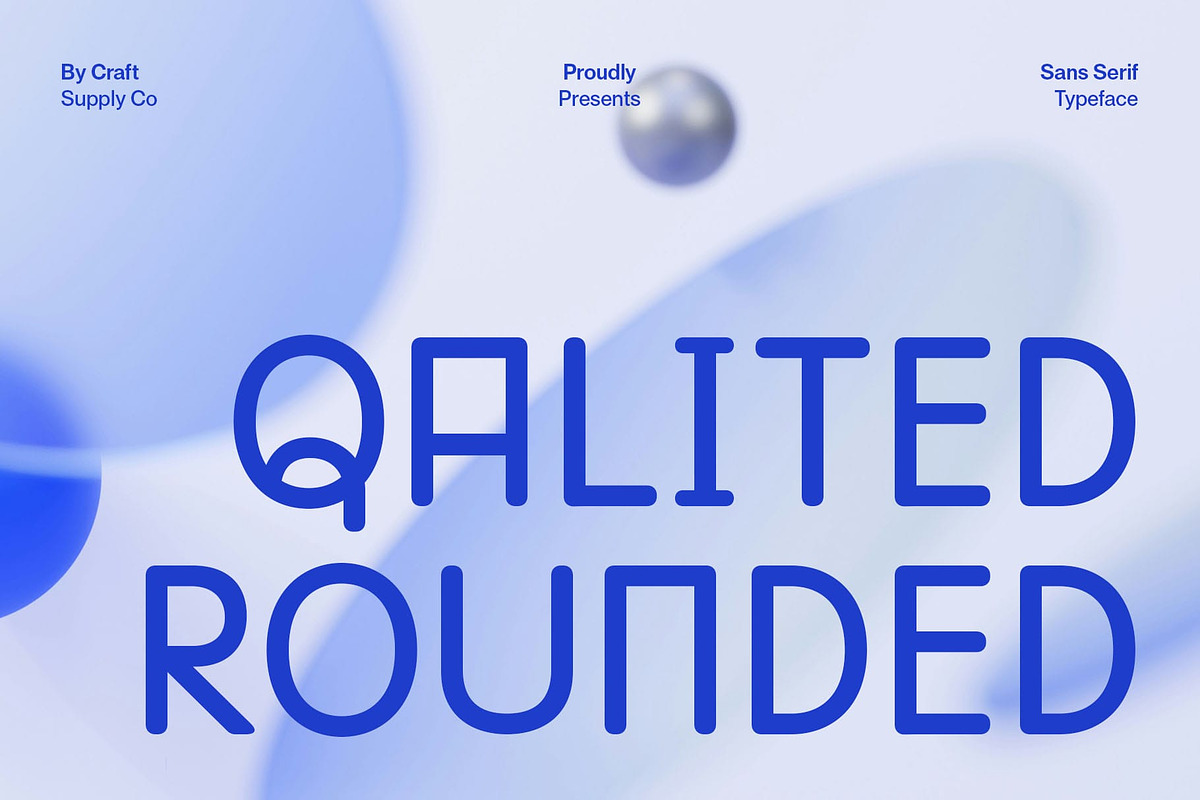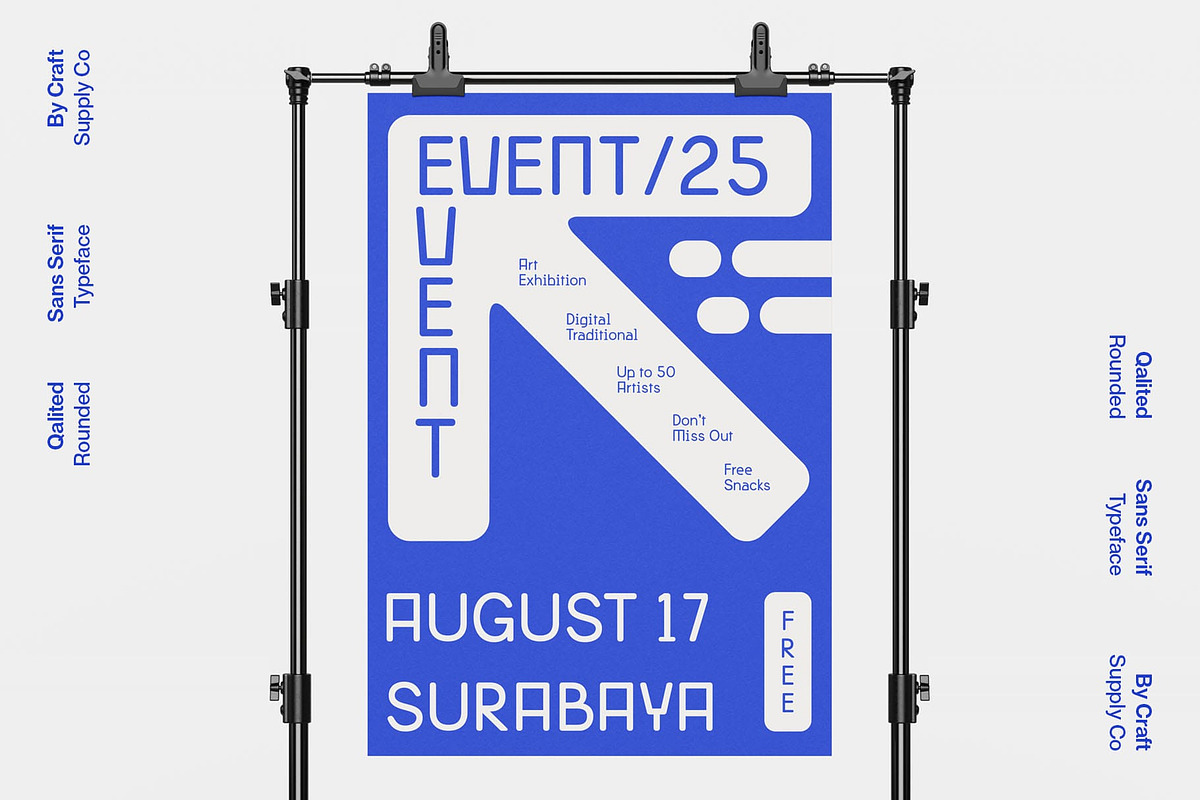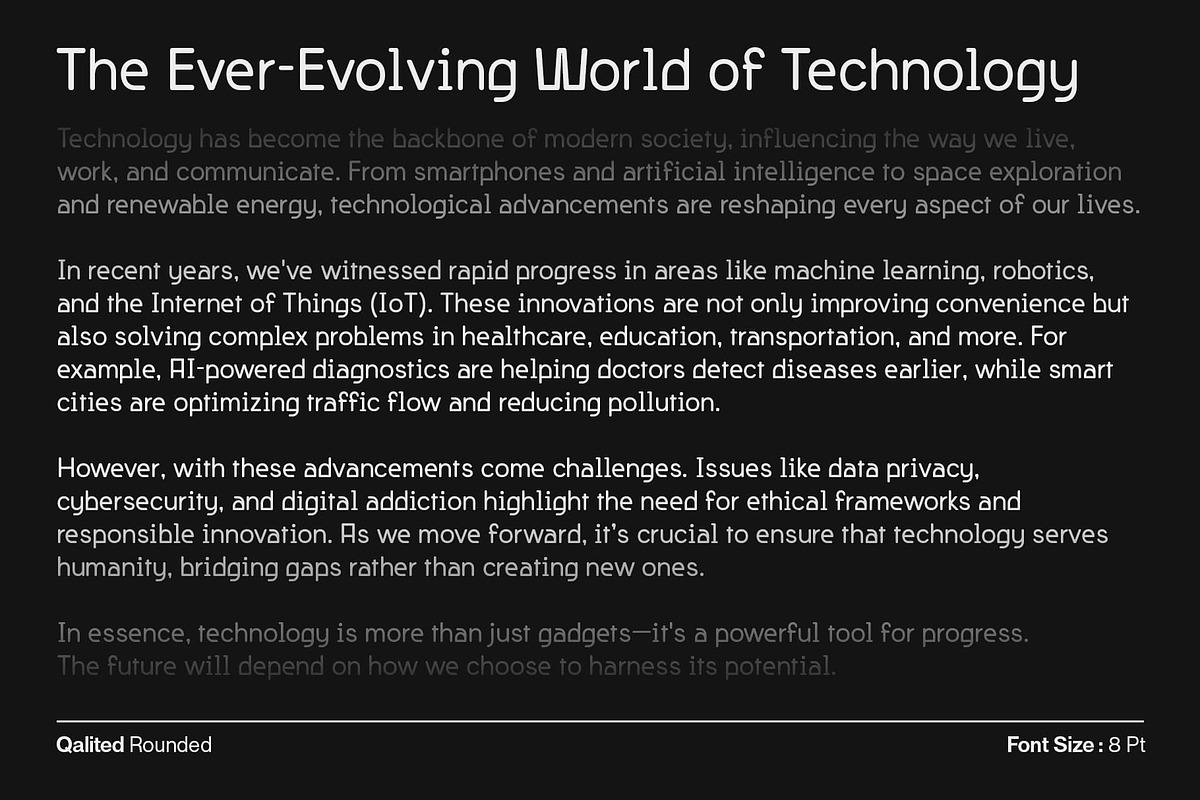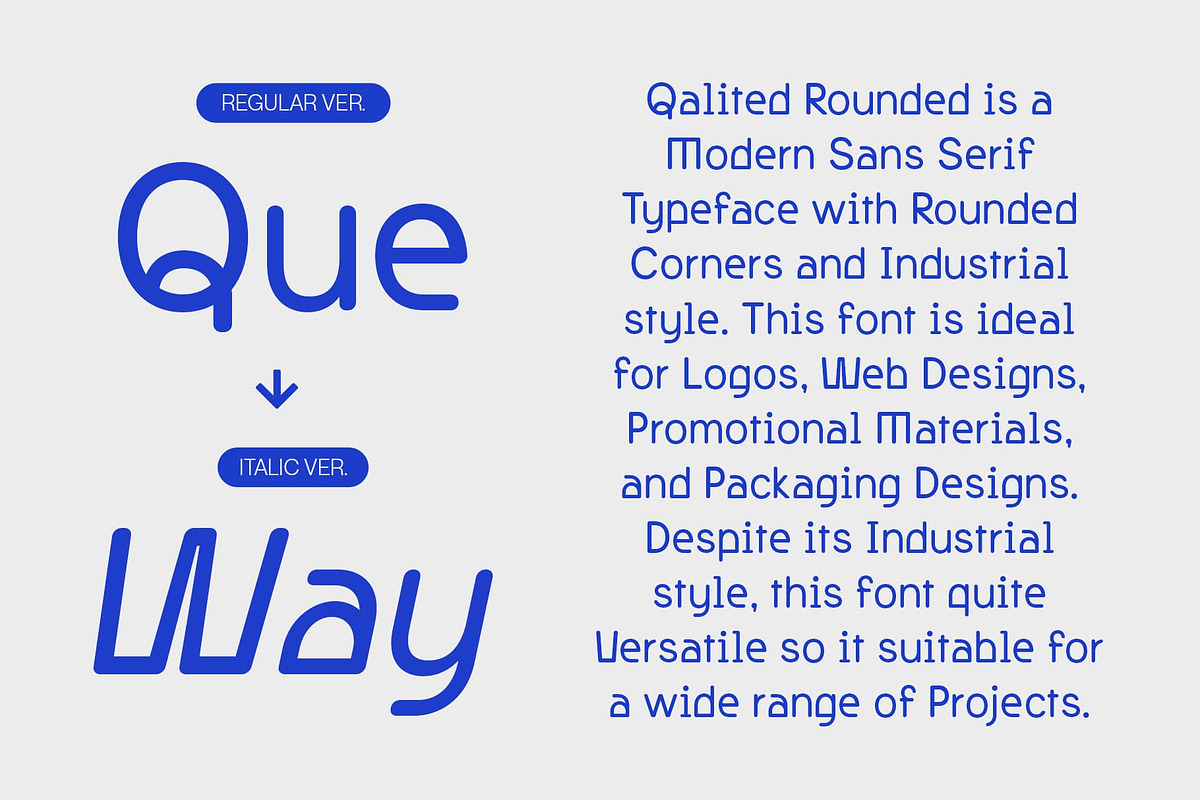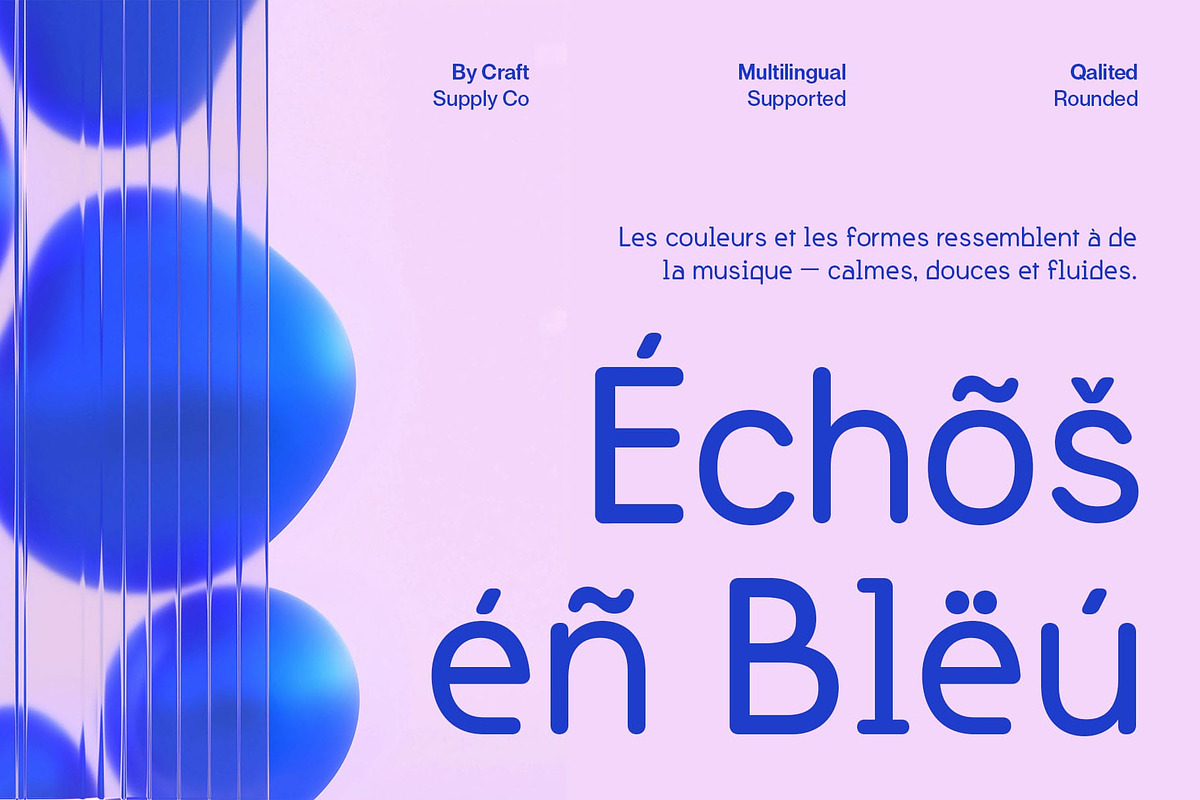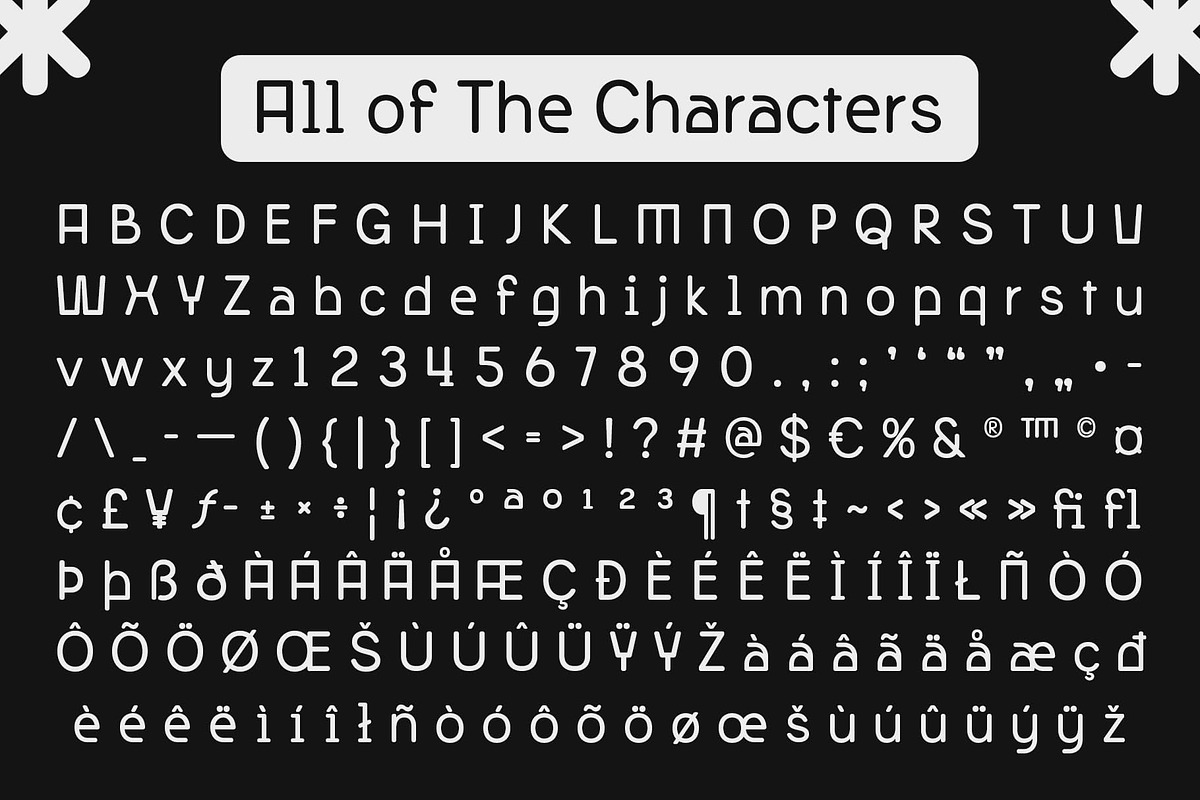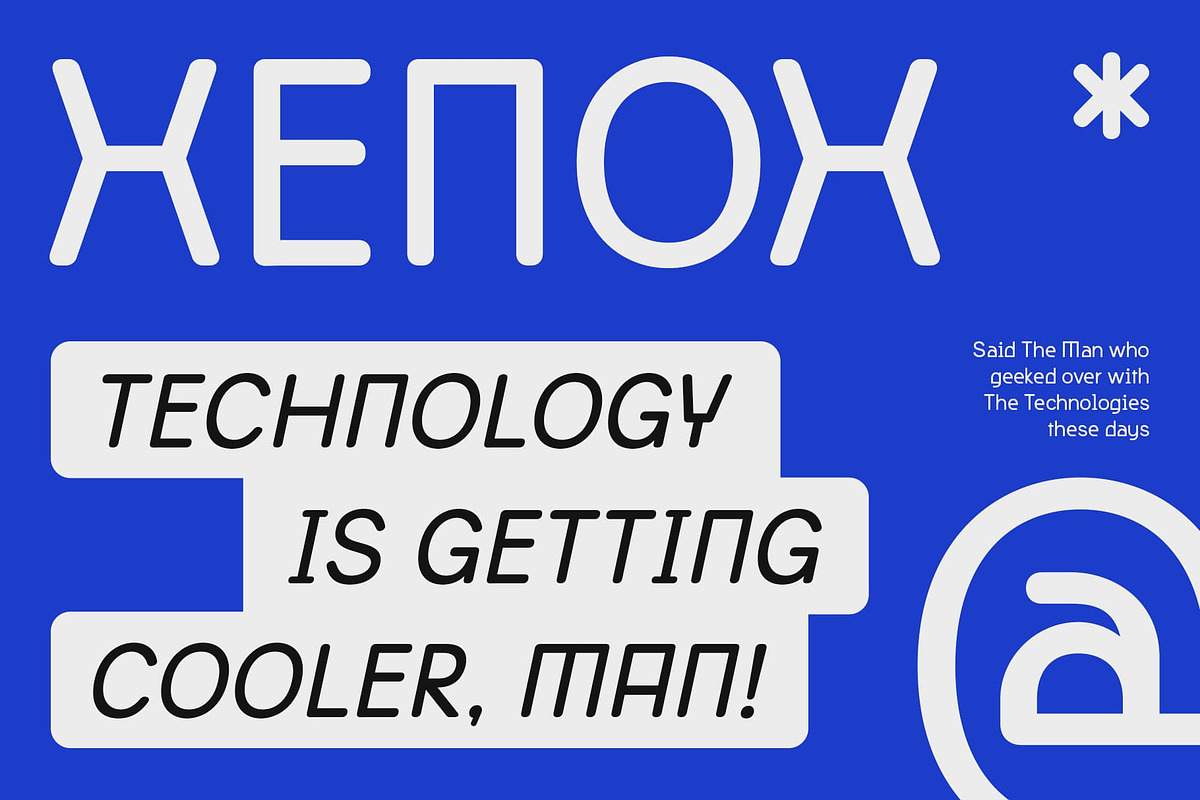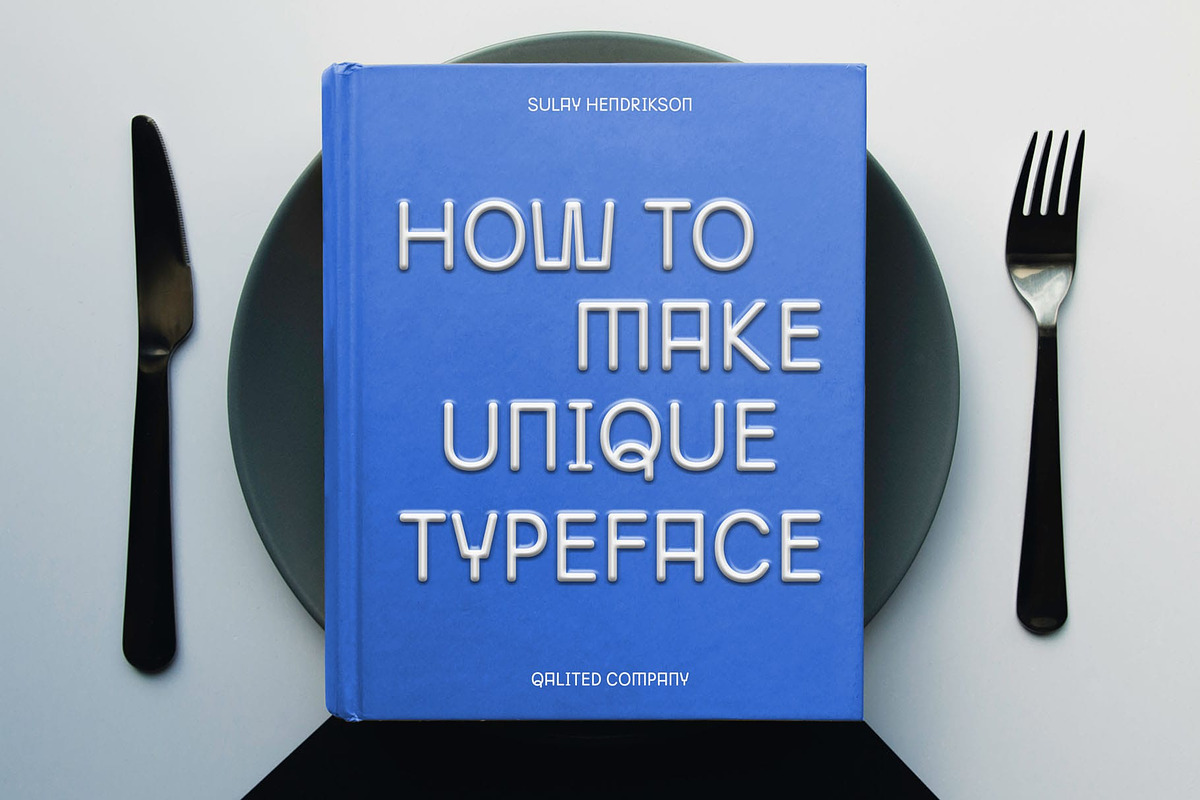
Qalited Rounded
Qalited Rounded Font – Industrial Strength with a Friendly Edge
Bold Industrial Form Meets Soft Contours Qalited Rounded is a modern display sans-serif font that balances rugged industrial structure with smooth, rounded edges. Its bold geometry reflects strength and precision, while the softened terminals add an inviting, humanized touch—offering a visual blend of confidence and warmth.
Contemporary and Approachable Aesthetic With its clean lines and rounded corners, Qalited Rounded conveys a look that’s both modern and approachable. The softened aesthetic makes the font suitable for brands or interfaces that aim to feel friendly without sacrificing professionalism. It’s a perfect harmony of technical clarity and emotional appeal.
Versatile for Digital and Print Design Whether used for digital UI/UX, packaging, or identity systems, Qalited Rounded brings consistency and readability to every context. Its contemporary design and legible forms make it highly adaptable—ideal for logos, app interfaces, signage, and printed materials that require clarity with character.
Ideal for Branding, Packaging, and User Interfaces Qalited Rounded thrives in professional environments where a modern yet inviting tone is desired. From tech startups and consumer brands to lifestyle packaging and editorial graphics, this font communicates trust, friendliness, and visual strength in equal measure.